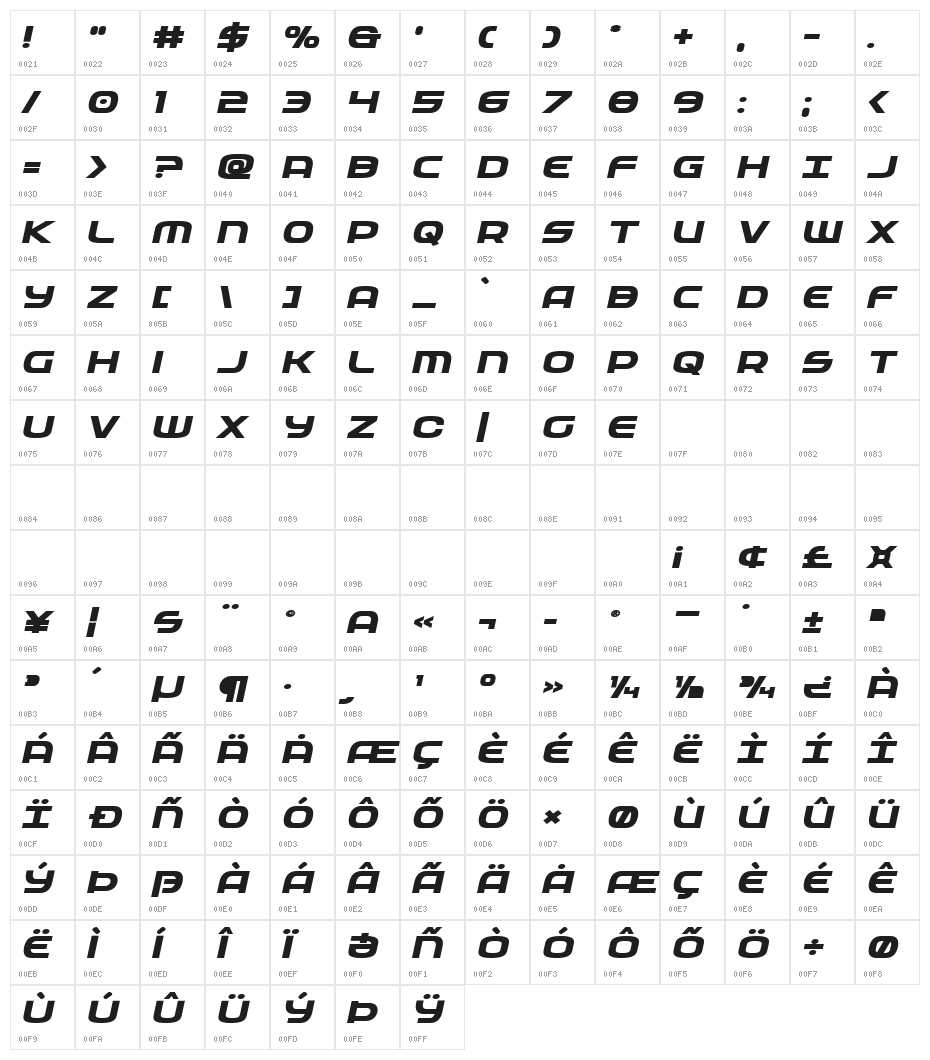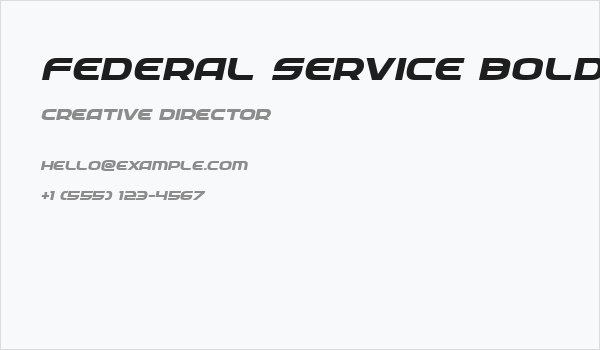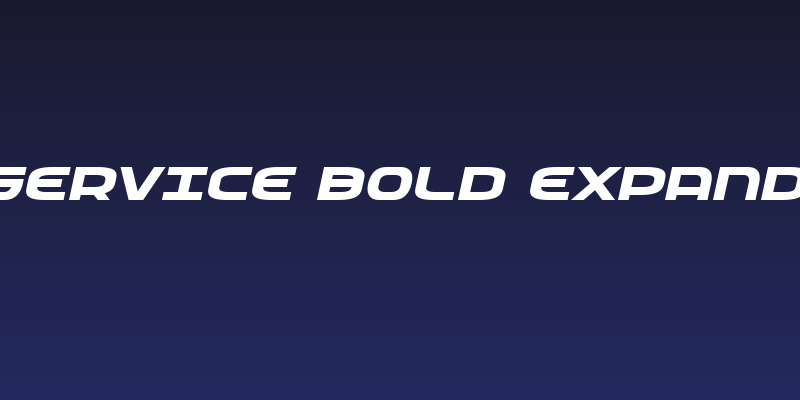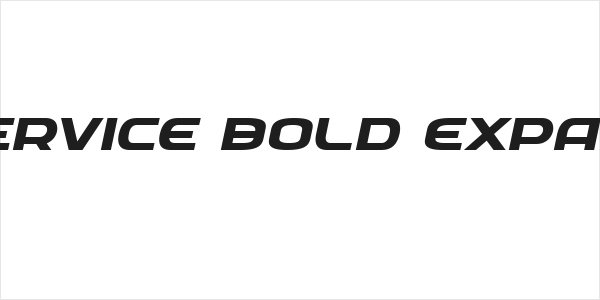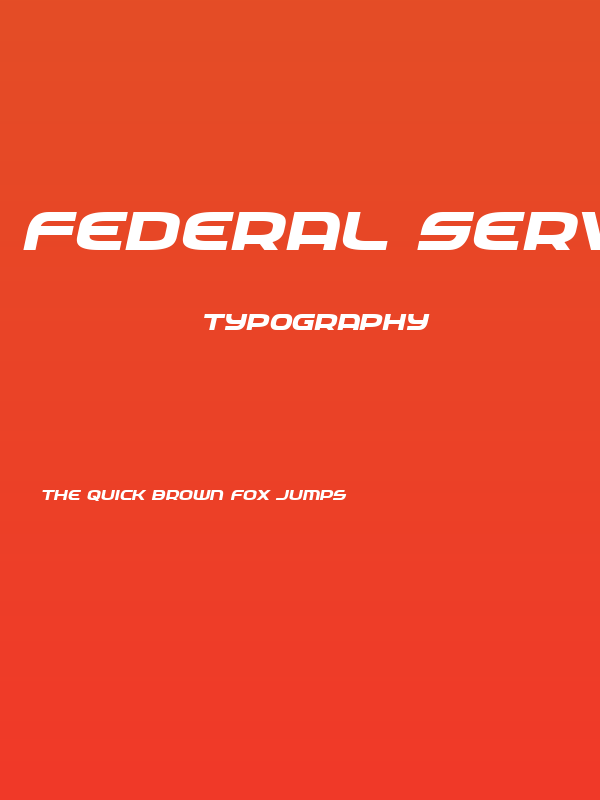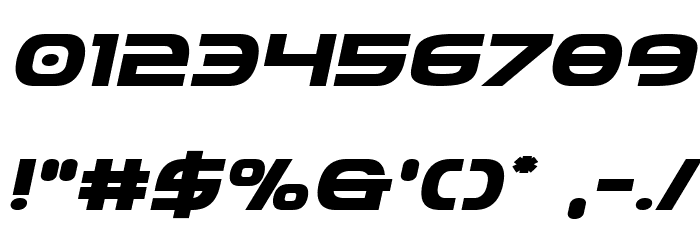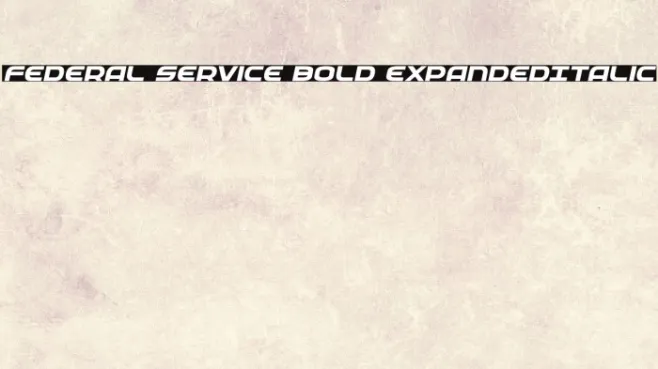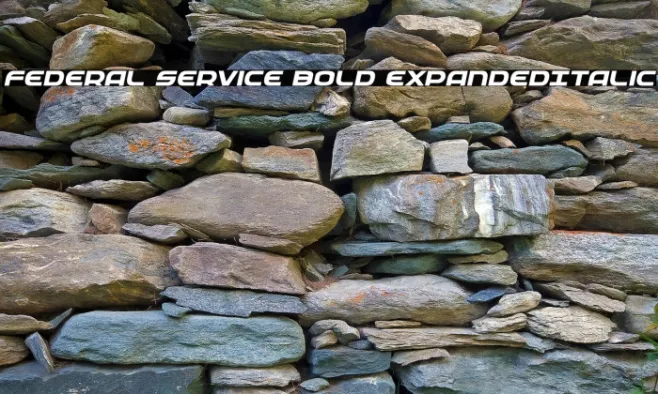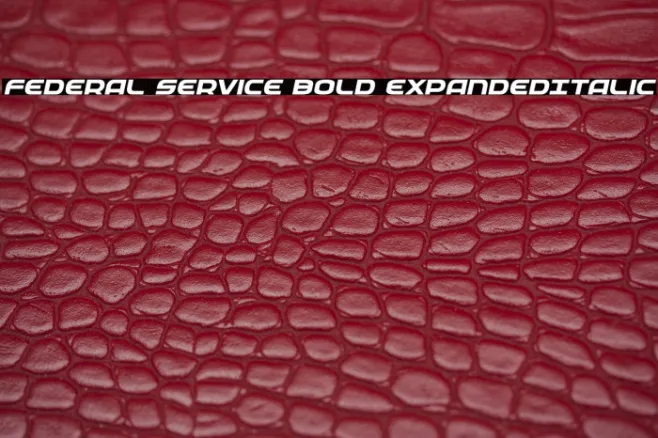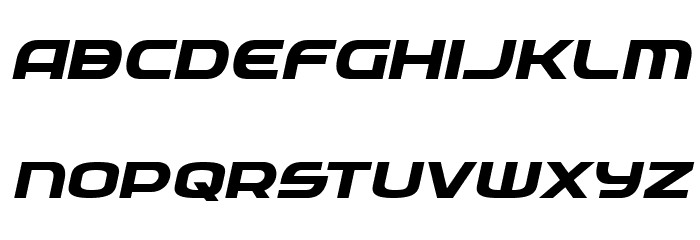
Federal Service Bold ExpandedItalic Font
Federal Service Bold ExpandedItalic Description
This font presents a bold and dynamic appearance with its expanded and italicized style. The characters are designed with a futuristic and sleek aesthetic, featuring sharp angles and clean lines that convey a sense of motion and modernity. The expanded width of the letters enhances readability while maintaining a compact look. The italic slant adds a sense of urgency and forward movement, making it ideal for attention-grabbing headlines or branding materials. The consistent stroke weight across characters ensures a uniform appearance, while the slight curvature in certain letters adds a touch of elegance.